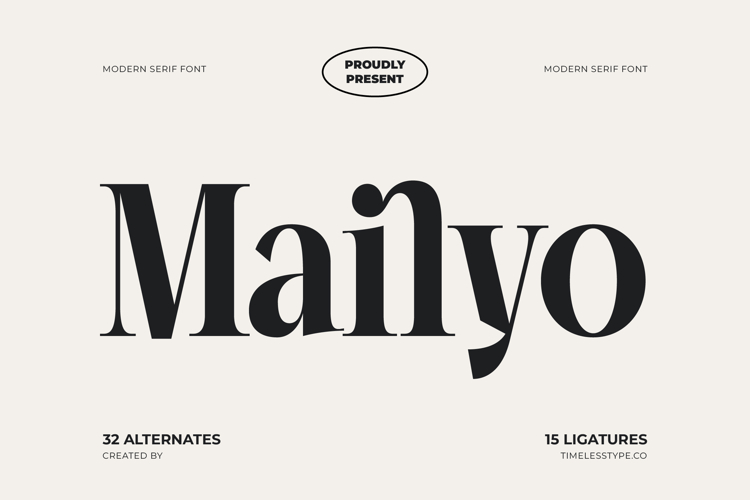
Mailyo - Modern Serif Font
Unleash unparalleled elegance in your designs with Font Mailyo - Modern Serif Font Serif Display. This exquisite typeface masterfully blends traditional serif sophistication with a distinct contemporary flair, creating a truly captivating visual experience. Its striking high-contrast strokes and refined curves demand attention, making it an ideal display font for any project seeking a touch of luxury and modernity. Every character of Font Mailyo - Modern Serif Font Serif Display is crafted to convey a sense of premium quality and distinctive style.
Elevate your creative vision with Font Mailyo - Modern Serif Font Serif Display's remarkable design versatility. Featuring an impressive 32 Alternates and 15 Ligatures, this font empowers designers with abundant choices to craft truly unique and personalized typography. These extensive stylistic sets allow for dynamic customization, ensuring your headlines, logos, and editorial pieces possess an exclusive, sophisticated edge. Font Mailyo - Modern Serif Font Serif Display provides the tools to transform ordinary text into compelling visual art.
Expand your global reach effortlessly with Font Mailyo - Modern Serif Font Serif Display. With its extensive multilingual support, Font Mailyo - Modern Serif Font Serif Display adapts seamlessly across global markets, making it incredibly versatile for international projects. This crucial feature ensures your brand maintains its elegant and professional voice worldwide, transcending linguistic barriers with grace. Achieving SEO-friendly design with a broad international appeal has never been more stylish or straightforward.
Discover the perfect typeface for your most discerning projects in Font Mailyo - Modern Serif Font Serif Display. It is perfectly suited for luxury branding, fashion editorials, high-end packaging, magazine layouts, elegant invitations, and sophisticated website headlines. This font is meticulously designed to project exclusivity and refinement, instantly elevating the perceived value of your content. Choose Font Mailyo - Modern Serif Font Serif Display to leave an unforgettable impression of class and timeless appeal.